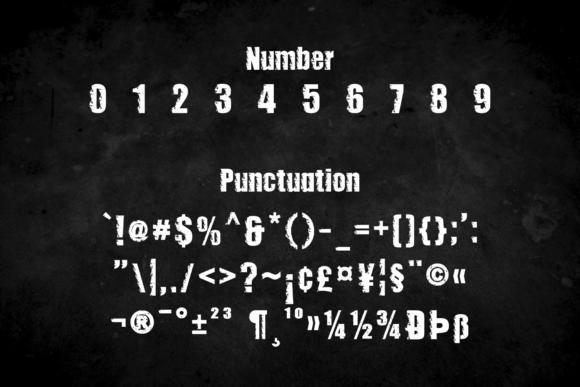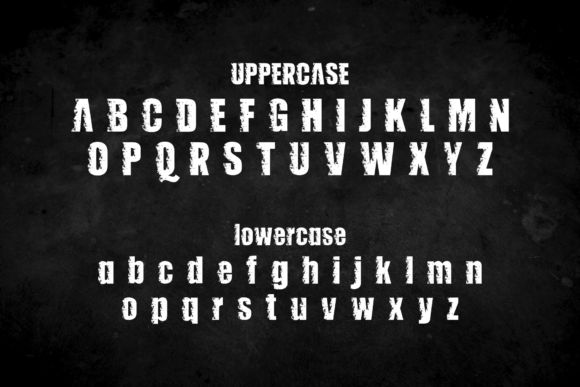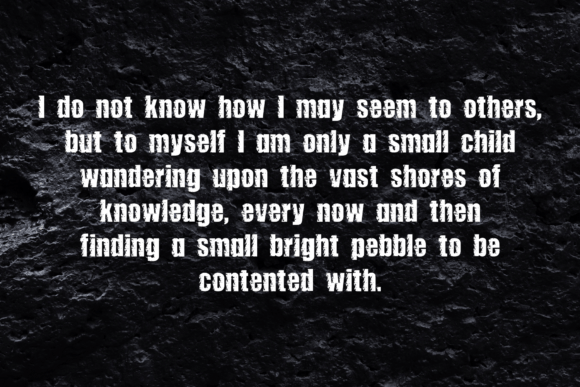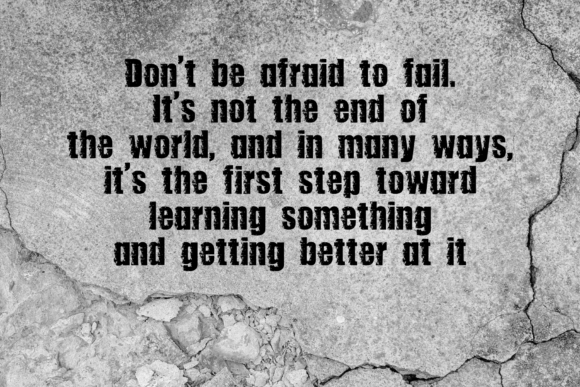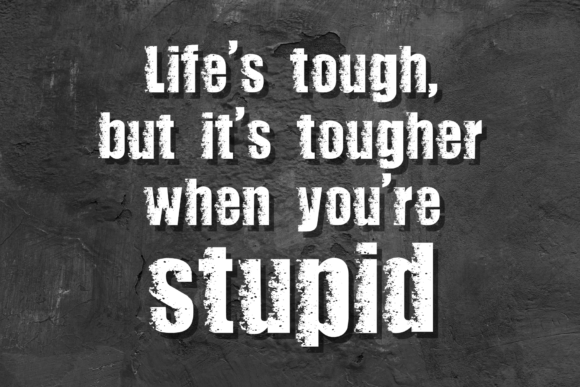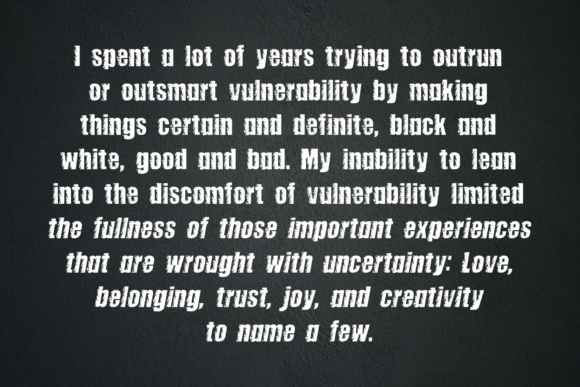
Introducing Event Font: The Ultimate Grunge Display Font
Are you looking for a font that exudes a strong, modern, and edgy vibe? Look no further than Event Font, a grunge-inspired sans serif display font that’s perfect for designers and crafters seeking a bold and eye-catching style. In this article, we’ll dive into the features and benefits of Event Font, and explore how it can elevate your designs to the next level.
The Rough yet Refined Look of Event Font
Event Font is designed to have a rough, grungy look that’s both bold and attention-grabbing. The font features white patches in the letters, giving it a unique, distressed appearance that’s perfect for creating striking headlines and advertisements. Despite its rough exterior, Event Font can seamlessly transition from casual to formal, making it a versatile choice for various design projects.
Key Characteristics of Event Font
So, what makes Event Font stand out from the crowd? Here are some of its key characteristics:
- Strong and Modern: Event Font boasts a robust and contemporary design that’s perfect for creating bold statements.
- Grunge and Techno: The font’s grungy texture and techno-inspired aesthetic make it ideal for designs that require an edgy, industrial look.
- Manly and Sporty: Event Font’s bold and rugged appearance also lends itself well to sports and fitness branding, as well as designs targeting a male audience.
- Versatile: Whether you need a font for logos, branding, headlines, or advertisements, Event Font is an excellent choice.
Uses for Event Font
Event Font’s versatility makes it suitable for a wide range of design applications. Here are some ideas to get you started:
- Logo Design: Create a bold and memorable logo that stands out from the competition.
- Branding: Use Event Font to develop a consistent visual identity for your brand.
- Headlines and Titles: Add a touch of grunge sophistication to your headlines and titles.
- Advertisements: Make your ads more attention-grabbing with Event Font’s bold and eye-catching design.
Tips for Using Event Font Effectively
To get the most out of Event Font, here are some expert tips:
- Pair with Contrasting Fonts: Combine Event Font with a clean, sans serif font to create visual interest and contrast.
- Experiment with Colors: Try pairing Event Font with bold, bright colors to amplify its impact.
- Use for Emphasis: Use Event Font to draw attention to specific elements, such as headlines or calls-to-action.
Event Font is a powerful and versatile grunge display font that’s perfect for designers and crafters seeking a bold and modern aesthetic. With its strong, rough texture and white patches, Event Font is sure to add a touch of edginess to your designs. Whether you’re creating logos, branding, headlines, or advertisements, Event Font is an excellent choice. So why wait? Download Event Font today and take your designs to the next level!